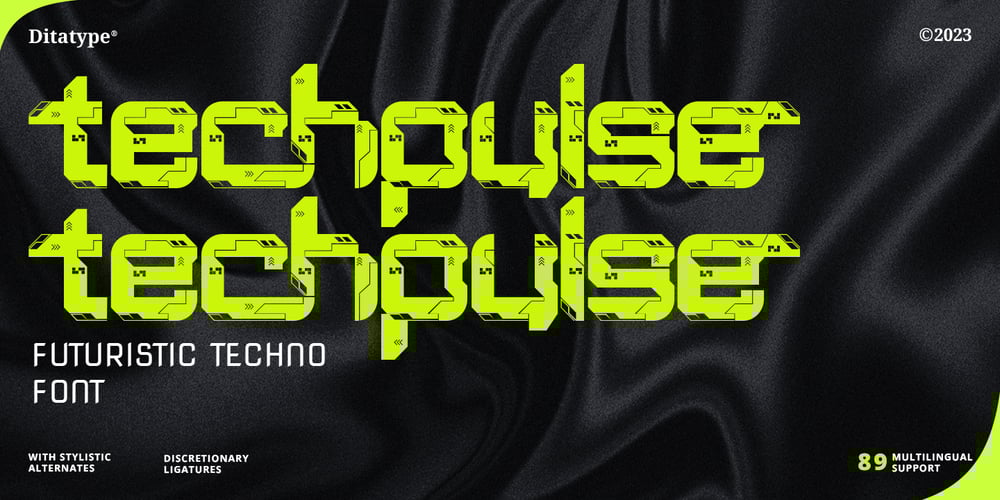
Techpluse Font Family was designed by Donis Miftahudin and published by Ditatype. Techpluse contains 1 styles and family package options. Techpulse is a striking display font that embodies the essence of futuristic design, with techno-inspired details adorning each letter. Every letter in Techpulse is meticulously crafted to incorporate intricate techno details, reminiscent of circuitry patterns and digital elements. These details infuse the font with a sense of dynamic energy, as if each character pulses with technological vitality.Despite its bold weight, Techpulse maintains a low contrast between strokes, ensuring a balanced and harmonious appearance across the entire typeface. This characteristic enhances readability. The font’s outline style adds to its futuristic appeal, giving each letter a sleek and modern aesthetic. In addition, enjoy the features here.Features: Ligatures Stylistic Sets Multilingual Supports PUA Encoded Numerals and Punctuations Techpulse fits in headlines, logos, posters, flyers, branding materials, greeting cards, print media, editorial layouts, and many more designs. Find out more ways to use this font by taking a look at the font preview.Thanks for purchasing our fonts. Hopefully, you have a great time using our font. Feel free to contact us anytime for further information or when you have trouble with the font. Thanks a lot and happy designing.